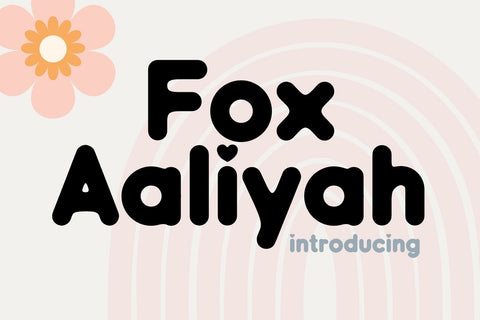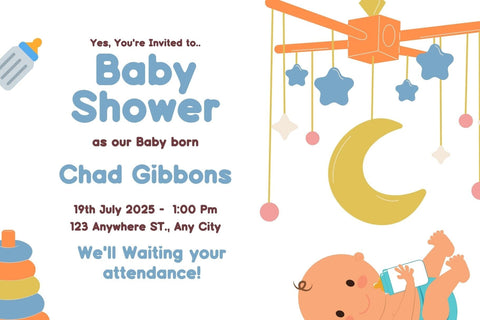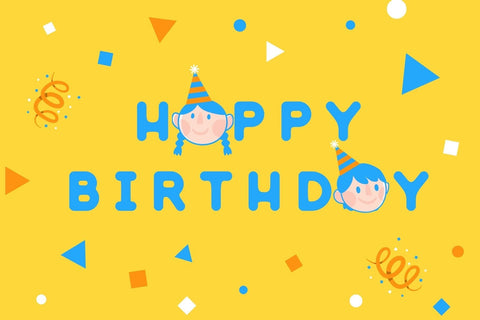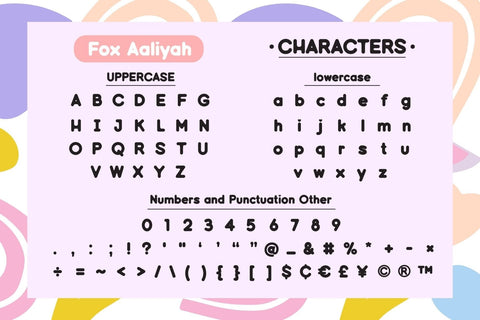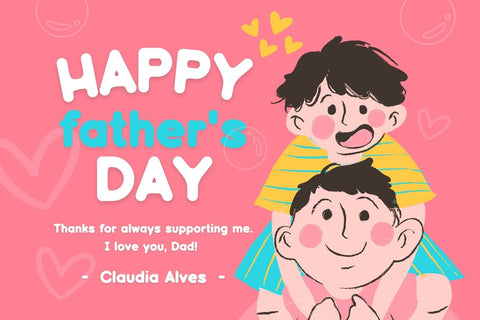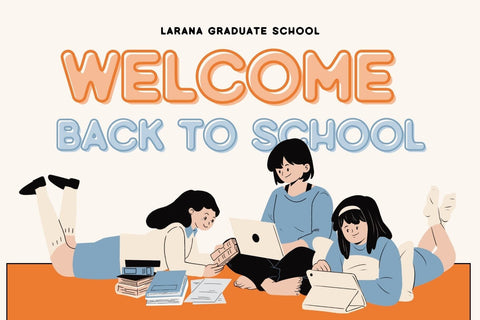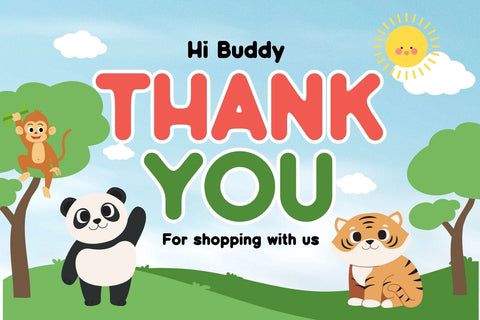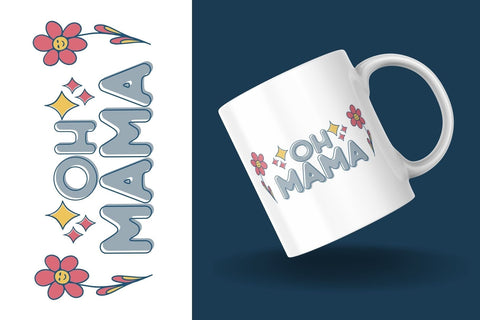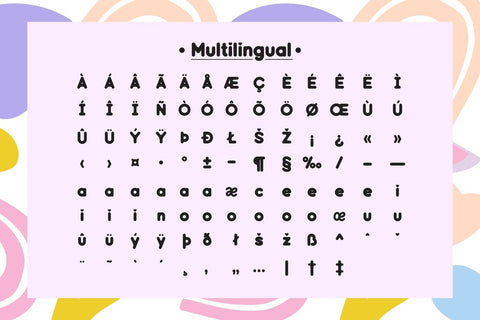
Fox Aaliyah Font
Fox Aaliyah is a cute and playful handwritten font. Due to its versatility, it fits perfectly into any design idea, such as children’s projects, blog posts, logos, branding, ads, invitations, greeting cards, planners, photo albums, decorations, and much more.